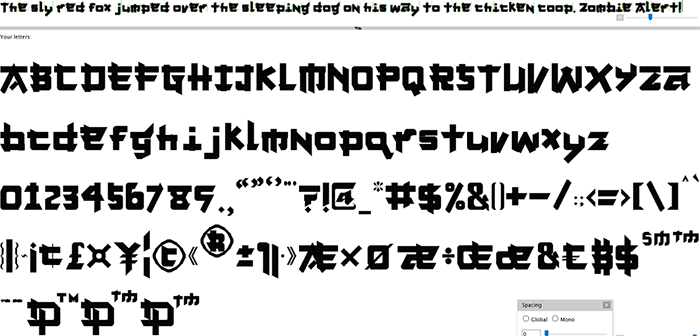
Just looking for Freedback.
i like the stylish A
will you make lowwer case?
Yeah, I will try, eventually.  The more interest it gets, the more I get interested in finishing it.
Welllllso far its useableI wonder if some punctuation would improve legibility  of phrase apart from that youve got an attractive latasian design here
*adding a huge "LOL" with all useful punctionalities and a :D for fun*
Yeah, I better add the puncuation, seeing that I just checked and then kerned all the letters that needed it.
OK, I guess I'm feeling pretty happy about this one.  Basic Latin is done. Kerning on a couple of issues is done.  I doubt it would make into Google Fonts, though.  I'm not oriental, and I looked up the font name.
"Yamashiro is a Japanese word with kanji often meaning mountain castle (山城). There are however other kanji spellings. Yamashiro, Kyoto, former town in Japan."
Here, I thought I had just made up a cool word to call it.  But I do like the name, so I think I might keep it.
@Aeolien... Latasian?  I had to look that one up.  LOL
I think I pretty much have kerned the entire lowercase of the alphabet and addressed any issues.  But I'm not quite done with the letters, u & q, among others, need to be redressed.
Fixed the &, and kerned it.  Ready to go, webfont use OK.  Clone it and change it if you'd like.
Added SM & TM signs, some other symbols. No accents or accented letters, no fractions, but Basic Latin, punctuation, Copyright, Registered marks and currency signs... Oh, I need to add the Euro sign... there we go.  Added a Bitcoin sign & an extra dollar sign.  That will be it.
Nice and trimmed down for an English language website web font, if you need more accented characters, either talk to me about the work or do it yourself.
Ooops, I almost forgot my wife... Who will never use this font, most likely, but in her honor the Polish get a a set of S/s with a cedilla. Just added. Not updating the characters sample graphic image, though.
I think I found the "A" that inspired this whole font, "Gang of Three" by Vic Fieger.  I saw it with a couple of other characters (not many) in a Blender 3D flying logo tutorial and really liked the A.  I forgot all about it until I starting hunting 3D tutorials again, recently.  Vic's version is much better (although it has a slightly limited basic character set)...